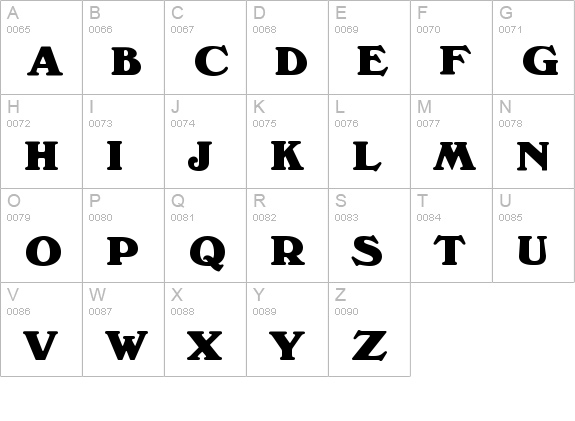
Catalego Display SSi font is a stunning and versatile typeface that exudes elegance and sophistication. Its sleek lines and modern design make it perfect for a wide range of projects, from branding to editorial design. With its bold and eye-catching appearance, Catalego Display SSi font is sure to make a statement and capture the attention of your audience. The best part? Catalego Display SSi font is available for free download at FontsMarket.com. This means you can easily access this beautiful font without any cost, making it a valuable addition to your font collection. Whether you're a designer looking to elevate your projects or a business owner in need of a standout font for your branding, Catalego Display SSi font is the perfect choice. Download it today and unleash your creativity with this stunning typeface.